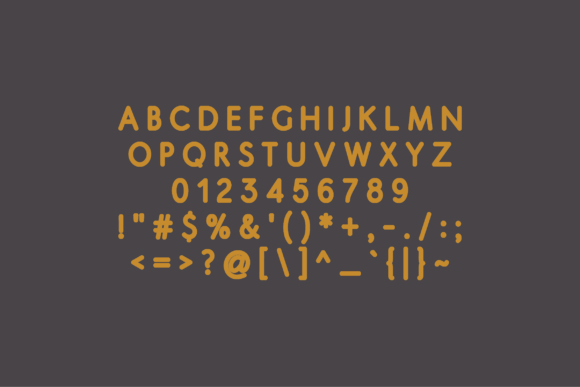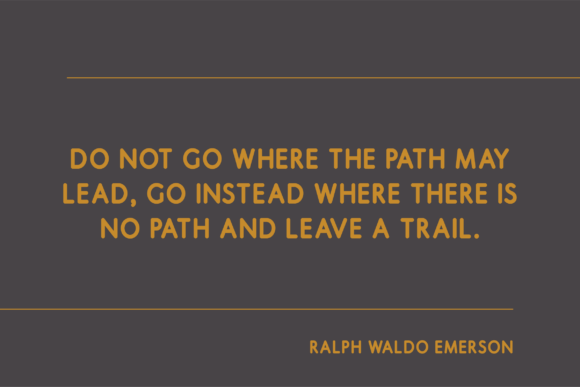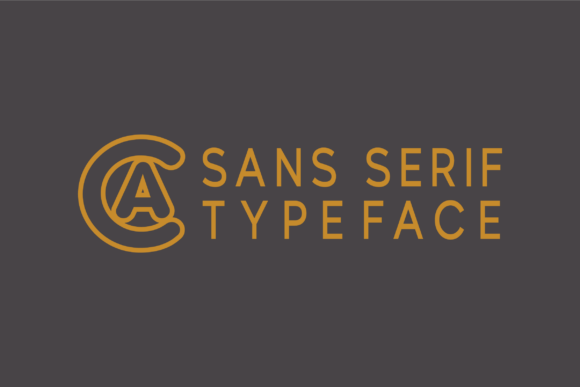
Introducing Goldenbell: The Ultimate Modern Sans Serif Typeface
In the world of typography, a font can make all the difference in the aesthetic and effectiveness of a design. For designers and crafters looking for a modern, classy, and versatile typeface, Goldenbell is an exceptional choice. This sans serif font is designed to elevate your creative projects, whether you’re working on logos, weddings, invitations, quotes, advertisements, print materials, magazines, or more.
What is Goldenbell Font?
Goldenbell is a contemporary sans serif typeface that boasts a clean and elegant design. It features a comprehensive set of characters, including upper case letters, numbers 0-9, and a range of punctuation and symbols. This extensive character set makes Goldenbell an extremely versatile font, suitable for a wide array of applications.
Key Features of Goldenbell Font
- Modern and Classy Design: Goldenbell’s sans serif design gives it a sleek and modern look, perfect for projects that require a touch of sophistication.
- Comprehensive Character Set: The font includes upper case letters, numbers, punctuation, and symbols, ensuring you have all the characters you need for your designs.
- Versatility: From logos and branding to weddings, invitations, and more, Goldenbell’s clean design makes it suitable for various projects.
- Ease of Use: Designed to be user-friendly, Goldenbell can be easily integrated into your design workflow, making it perfect for both beginners and professionals.
Use Cases for Goldenbell Font
The versatility of Goldenbell makes it an ideal choice for numerous design projects. Here are some of the top use cases:
- Logos and Branding: Create a lasting impression with a modern and elegant logo that stands out.
- Weddings and Invitations: Add a touch of class to your wedding invitations, save-the-dates, and other event materials.
- Quotes and Typography: Use Goldenbell to highlight quotes, testimonials, or any text you want to emphasize with a clean and modern look.
- Advertisements: Elevate your ad designs with a professional and sleek typeface that captures attention.
- Print and Magazines: Perfect for articles, headings, and any print material that requires a clear and readable font.
Why Choose Goldenbell Font?
In a sea of typefaces, Goldenbell stands out for several reasons:
- Unique yet Versatile: While it has a distinct look, Goldenbell is versatile enough to fit into various design contexts.
- High Readability: The clean lines and sans serif design ensure that your text is easy to read, even at smaller sizes.
- Time-Saving: With its comprehensive character set, you can work more efficiently without constantly switching fonts.
Goldenbell is more than just a font; it’s a design solution for creatives looking for a modern, classy, and versatile typeface. Its wide range of applications, from professional branding to personal projects like wedding invitations, makes it a valuable addition to any designer’s toolkit. With Goldenbell, you can ensure your designs look polished, professional, and captivating. Whether you’re a seasoned designer or a DIY enthusiast, Goldenbell is poised to elevate your creative projects to new heights.